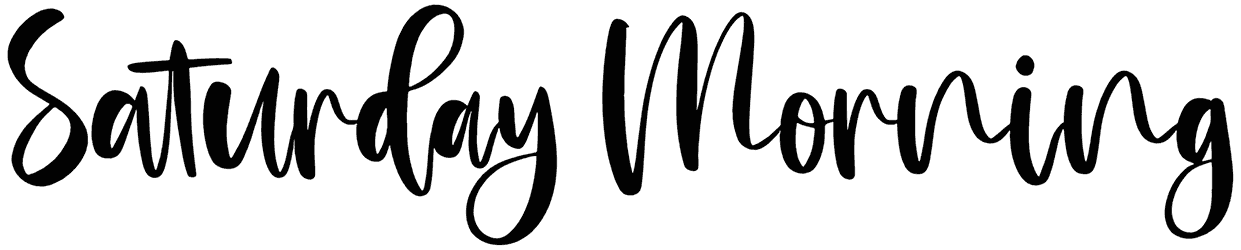
Saturday Morning Font
Saturday Morning is a beautiful handwritten font that injects a sense of fun and freedom into any design. The use of this spring font with its two styles in branding, media, and invitations will bring a touch of warmth and individuality.